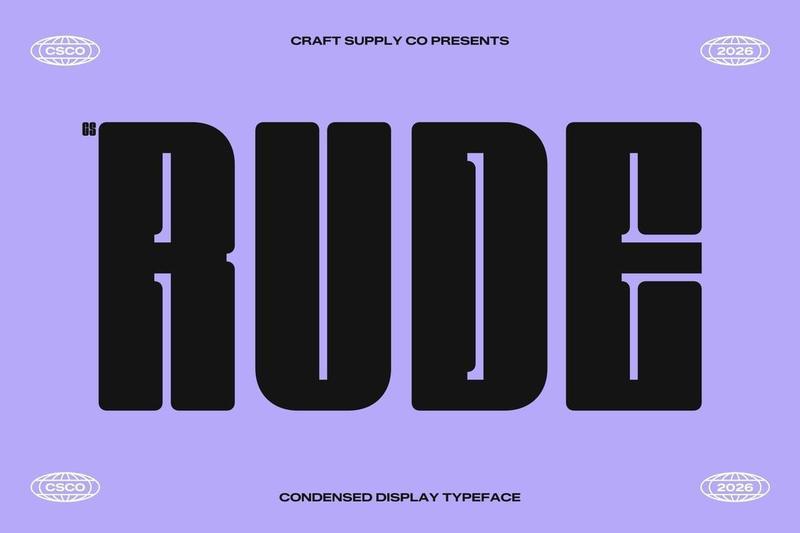
CS Rude Condensed Industrial Sans Serif with Bold Authority
Condensed Sans Serif with Industrial Edge
This is a compact and modern condensed sans serif font designed to deliver a bold industrial presence. Built for strength and efficiency, this typeface combines sharp structure with contemporary energy, creating a confident voice that commands attention. Its strong personality makes it perfect for designs that need to feel powerful and modern.
Designed for Maximum Impact in Tight Spaces
With its condensed proportions, this font allows designers to fit more content into limited layouts without sacrificing clarity. The tall, narrow letterforms create a striking vertical rhythm that feels assertive and space-efficient. This makes it ideal for headlines, posters, and branding where space is limited but visual impact is essential.
Bold Character with Strong Readability
Despite its compact form, this font maintains excellent readability across various sizes. The clean strokes and balanced spacing ensure text remains clear and legible, while the industrial aesthetic adds depth and personality. This balance between boldness and clarity makes it a dependable choice for impactful typography.
Versatile for Branding and Creative Projects
This font shines in branding, advertising, posters, and digital design that demand a strong visual identity. Its modern industrial style gives projects a confident and energetic tone, helping your typography stand out while maintaining a professional and contemporary look.